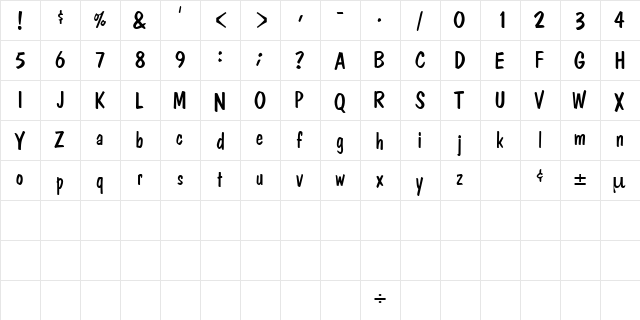
BangaSSK Regular
Design Context for BangaSSK Typeface
BangaSSK is a composed and adaptable typeface that performs quietly and consistently across a wide range of design contexts.